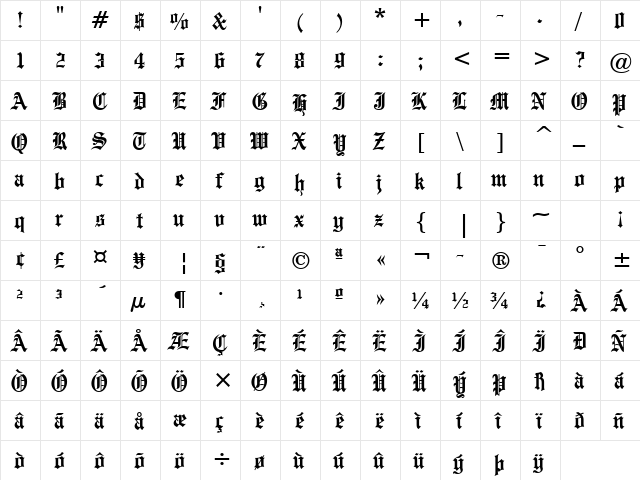
Engraved Condensed Bold
Design Context for Engraved Condensed Typeface
Engraved Condensed is built around its visual character rather than neutral utility — its distinctive forms are designed to make an impression at display sizes. Its bold stroke weight gives it real presence on the page.
Font Pairing: Pair with a clean neutral sans-serif for body copy to let Engraved Condensed's character lead without overwhelming the composition.
Pro Tip: Use Engraved Condensed exclusively at display sizes — it was designed to be seen, not read at length. Let a neutral companion handle body copy.